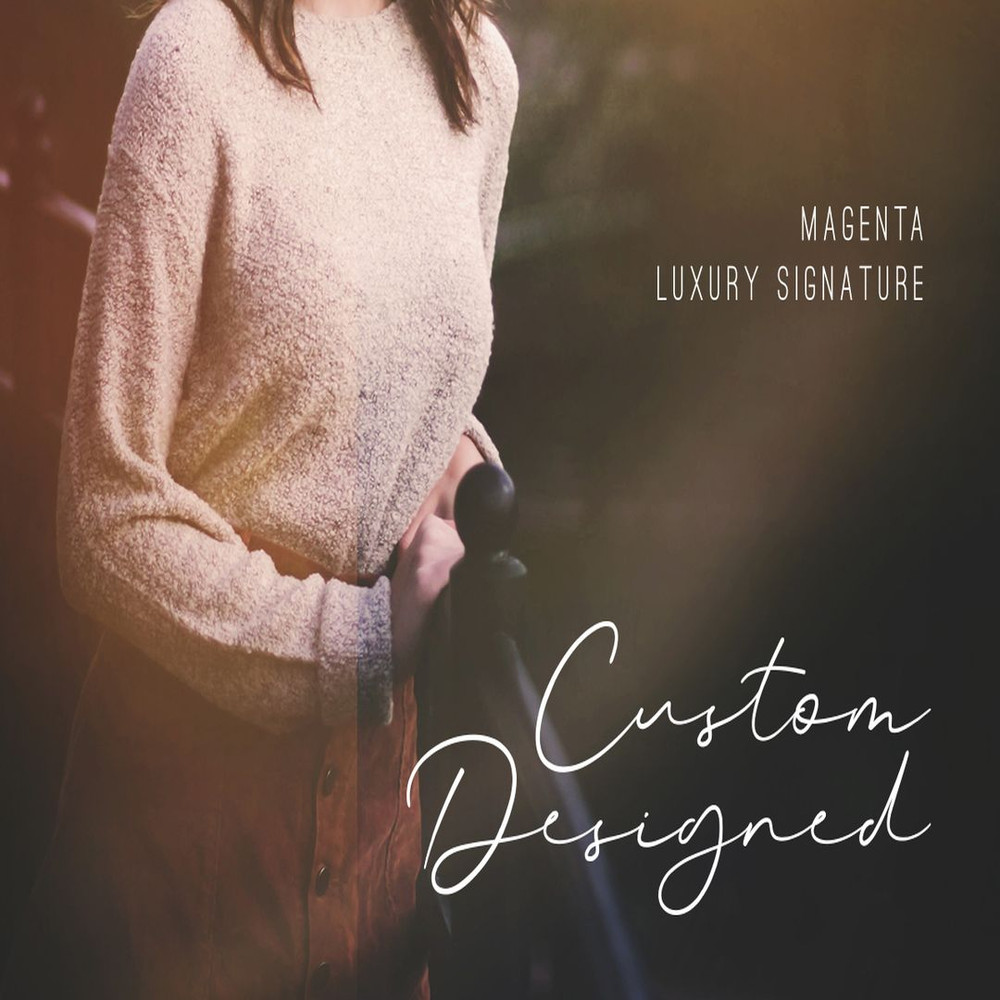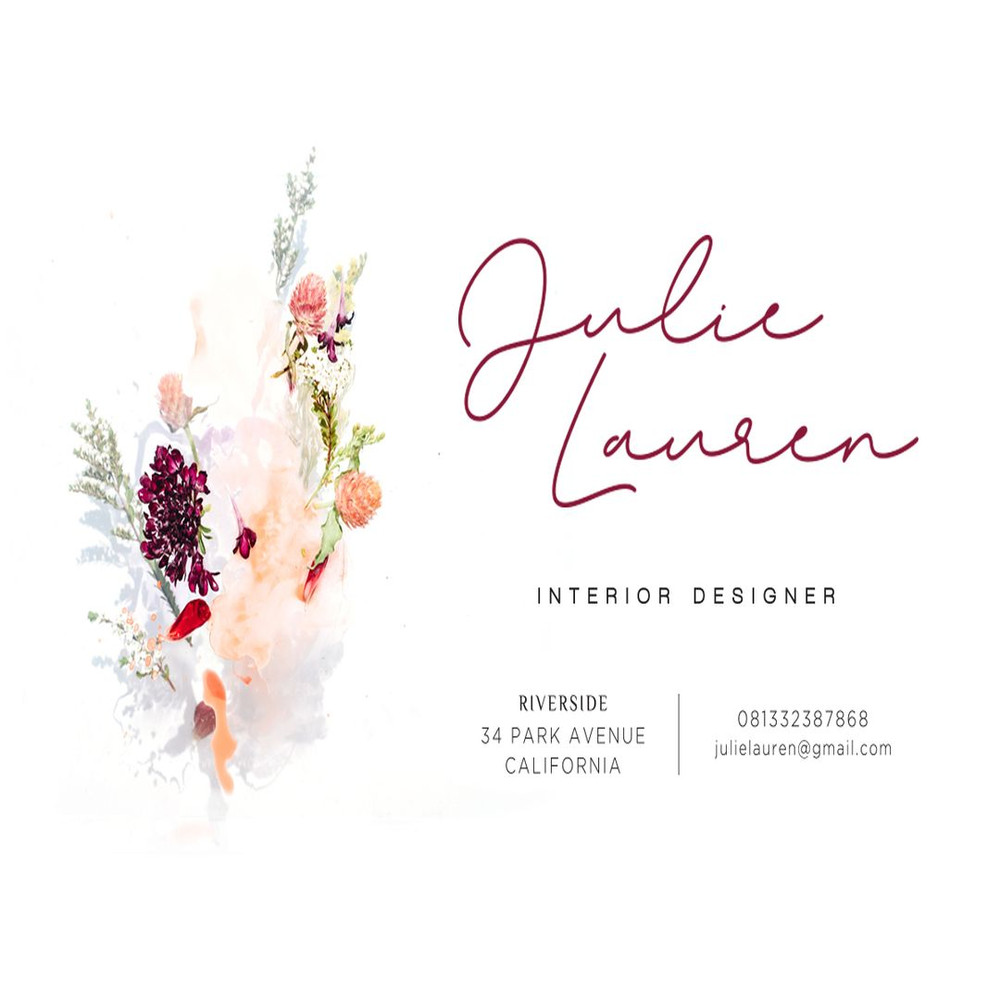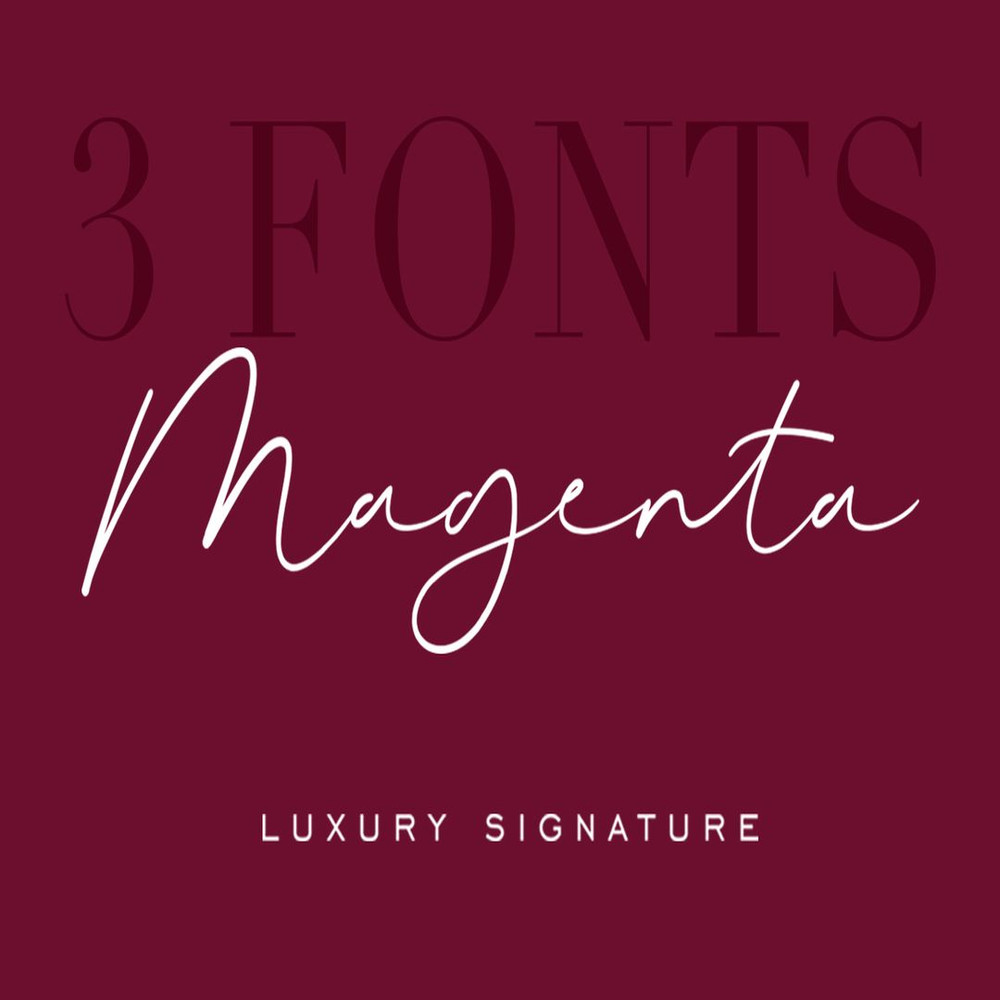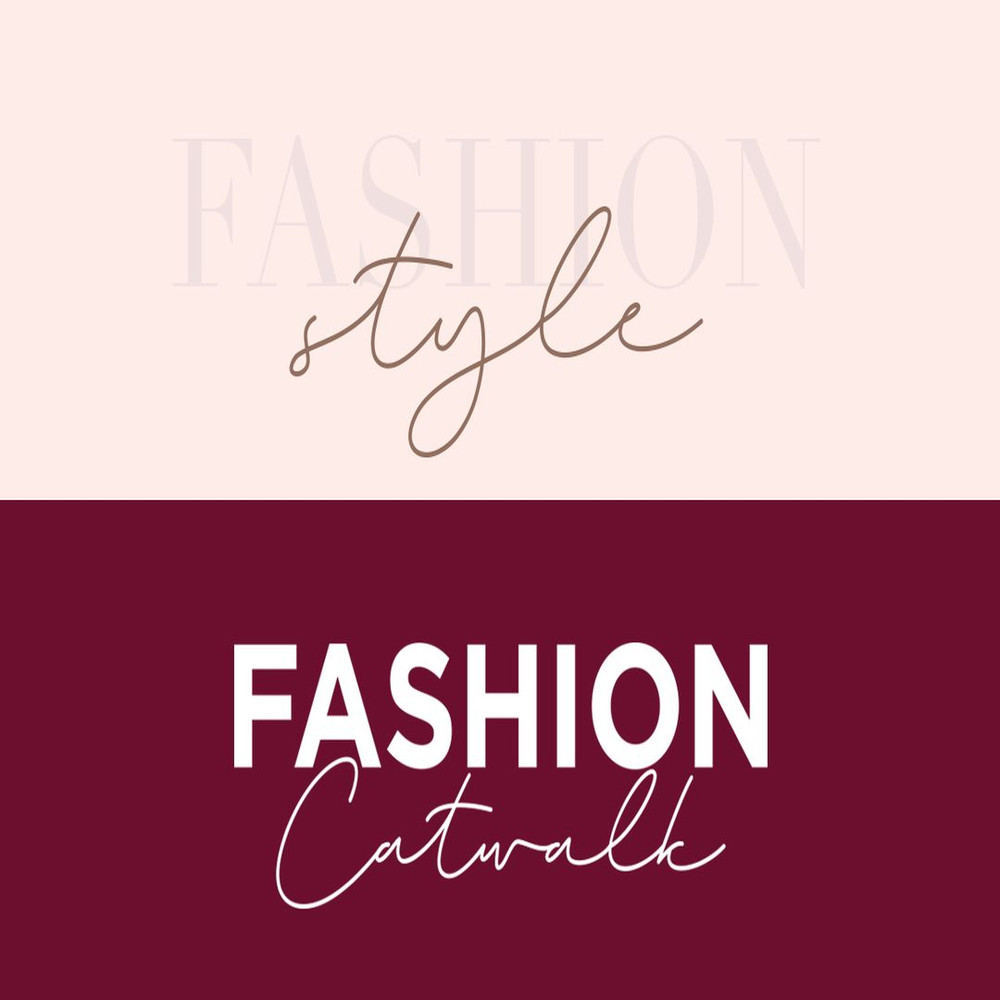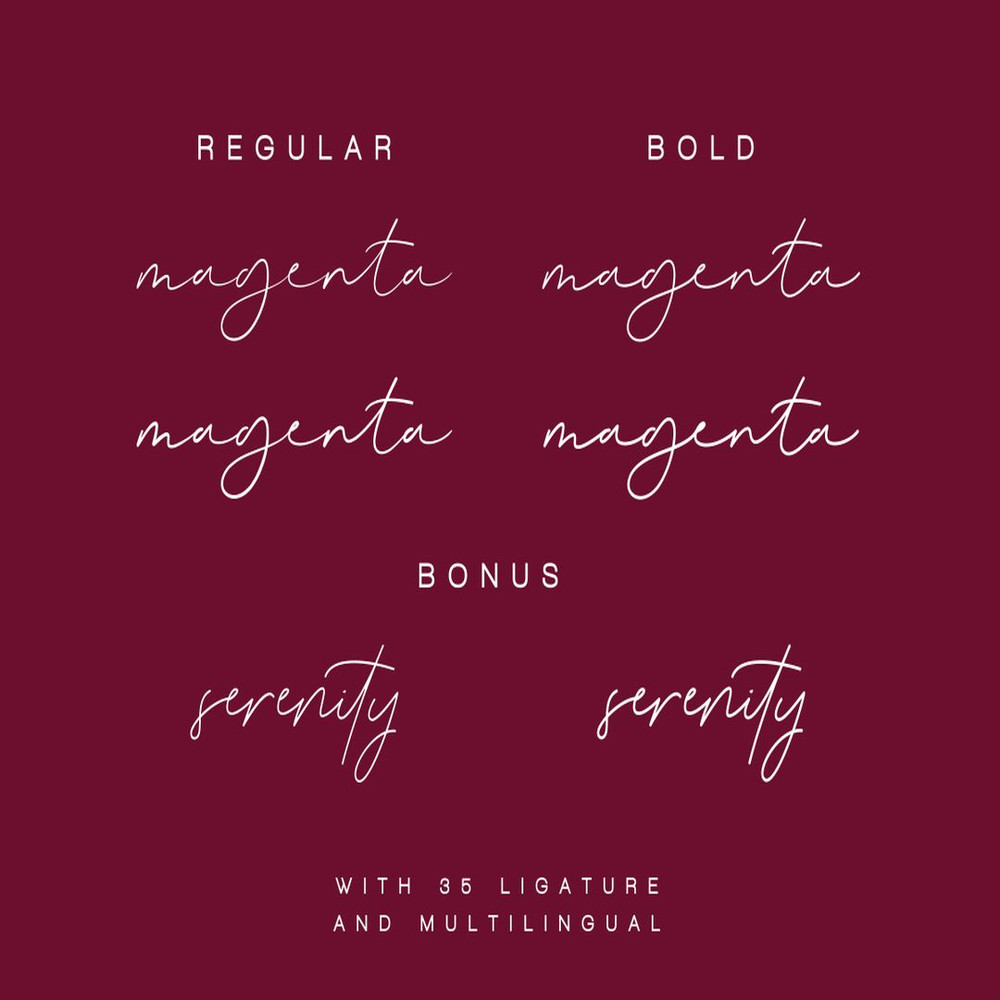
Magenta – 3 Luxury Signature Font Trending Fonts - Digital Font
Say Hello to Magenta – luxurious and carefree signature script font that was lovingly created by hand. This font is perfect addition to the professional designers font.
Magenta has 2 version, signature and monoline script, It’s perfect fit for signature logos, printed quotes, blog , social media headers, product packaging and a lot more